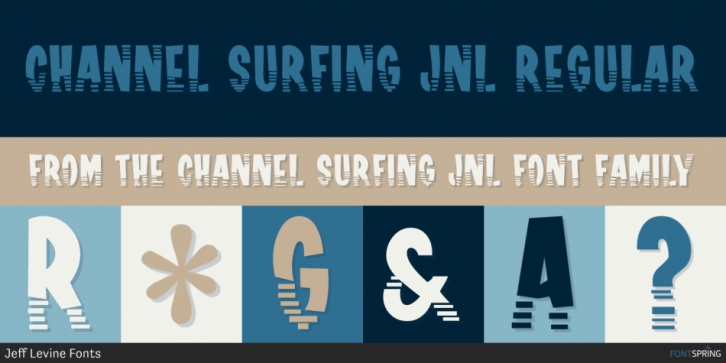
Channel Surfing JNL is a novelty and kids font published by Jeff Levine Fonts.
In 1999, Jeff Levine released a freeware font called “Channel Tuning JL†scanned from drawings made with a felt tip marker and designed as if the letters were breaking up due to poor reception such as on pre-digital TV sets.
Over a decade later, Jeff has totally reworked the font—giving it cleaner lines, an extended character set and renaming it Channel Surfing JNL to set it apart from the roughly-drawn original.